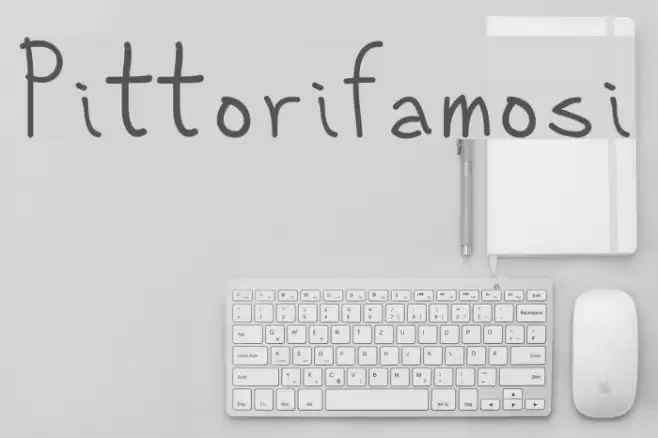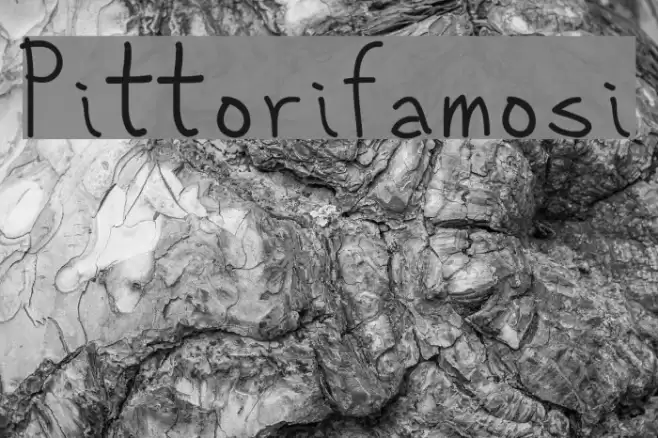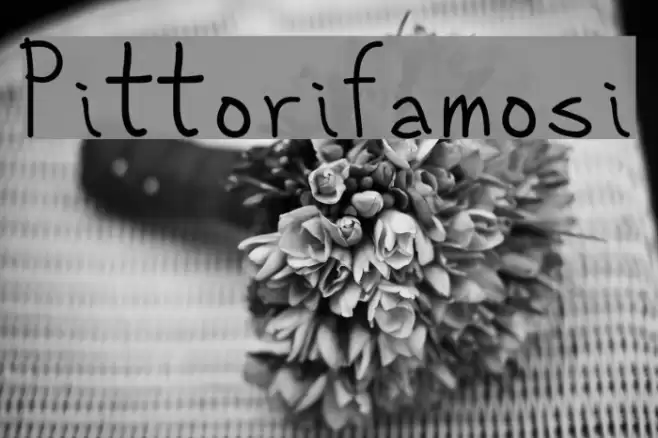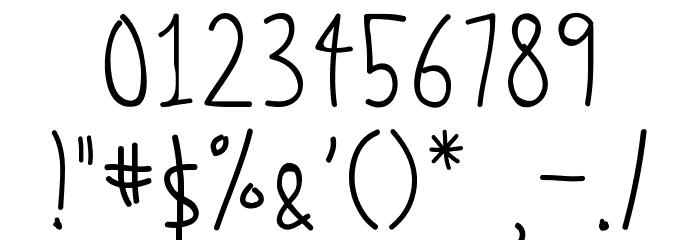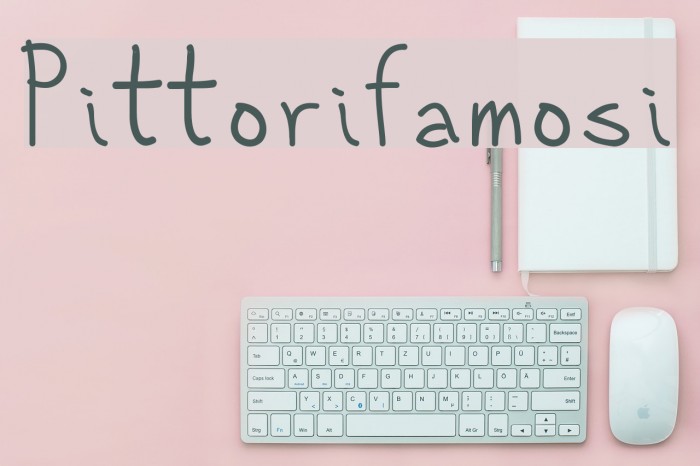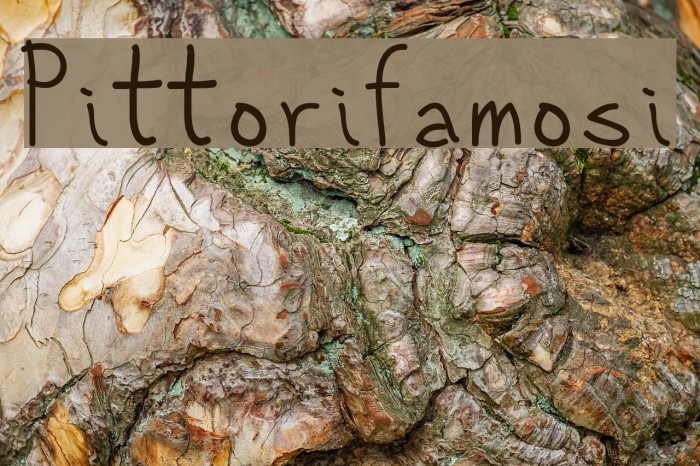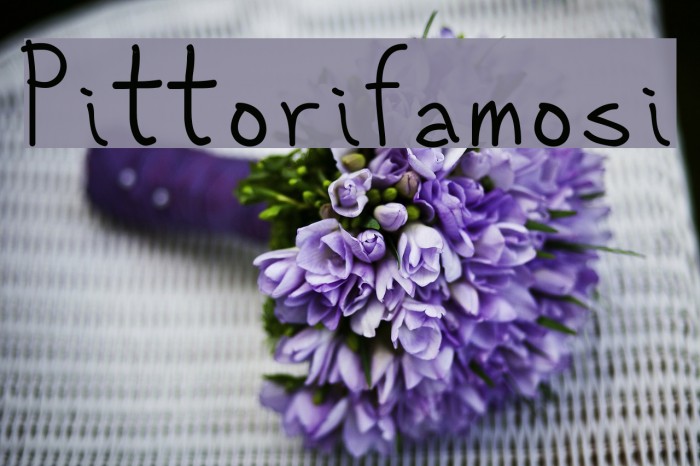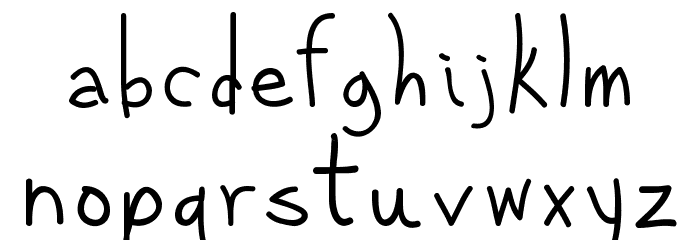
Pittorifamosi Font
Pittorifamosi Description
This font features a playful, handwritten style with a casual and informal appearance. The letters are slightly irregular, adding a personal touch that mimics natural handwriting. The uppercase and lowercase letters maintain a consistent flow, with rounded edges and varying stroke thickness that contribute to its approachable and friendly look. The numerals and special characters follow the same style, ensuring uniformity across all glyphs. This font is versatile, suitable for projects that require a human touch or a creative flair.
A playful, handwritten font with a casual and informal style from Uncategorized fonts.
- Proposed Projects: Ideal for greeting cards, children's books, personal blogs, and creative branding projects.
- Overall Style: Casual
- Use Case: Headlines, Logos, Informal text